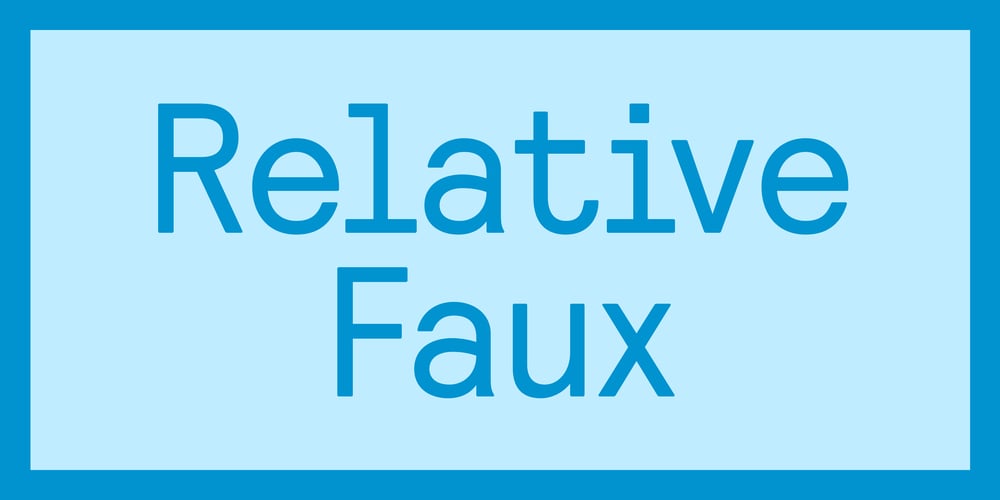
Relative Faux Font Family was designed by Colophon Foundry and published by Colophon Foundry. Relative Faux contains 1 styles and family package options. Relative is a type family of two halves — a proportional set of weights from Book to Black (including Italics), and fixed-width pitched versions that are abridged by a ‘faux’ monospace cut.This ‘Faux’ cut takes the restrictions of a monospace typeface, and subverts them into aesthetic traits (notably, see the ‘i’ and ‘l’), allowing the typeface to be spaced proportionally and retain some of the sensibility of its fixed-width cousins.Relative is available in four weights — Book, Medium, Bold and Black — with corresponding Italics, as well as pitched monospaced variants in 10, 11 and 12 Pitch, and lastly a Faux-monospaced variant. It is available to license in both Standard (‘STD’) and Professional (‘PRO’) versions, the latter contains Cyrillic and Greek scripts and also copious OpenType features and stylistic alternates.